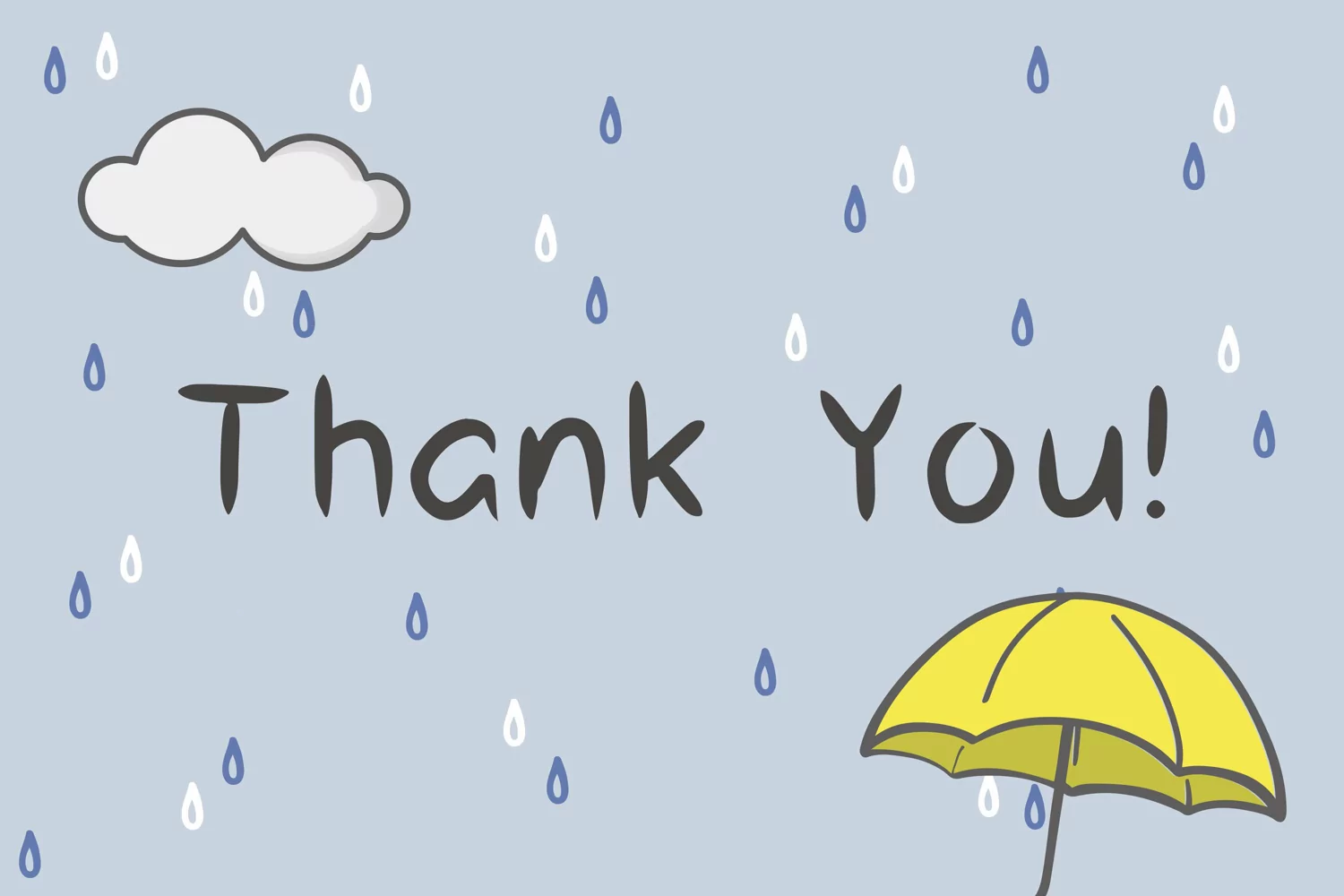
Rainy Day is a cute, quirky and chunky lettered handwritten font. Fall in love with its incredibly versatile style and use it to create spectacular designs!